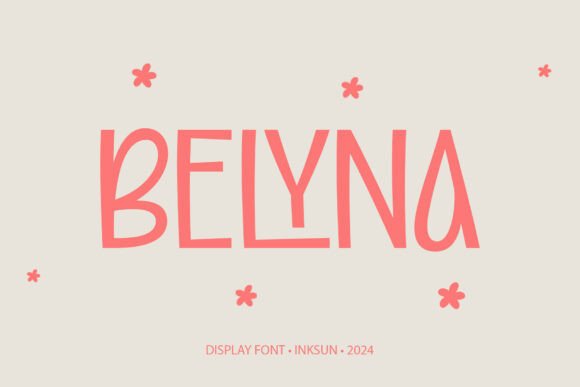
Discover the Charm of Belyna Font: A Friendly Display Sans-Serif for Creative Projects
Have you ever been in the middle of a design project, and suddenly, you’re stuck on finding the perfect font? I recall a recent experience where I was working on a children’s book, and my client’s request was simple yet challenging: find a font that’s both playful and elegant. After hours of searching, I stumbled upon Belyna Font, designed by Inksun in 2024. This sweet and friendly display sans-serif font has been a game-changer for my designs, and I’m excited to share its unique charm with you.
A Personal Review of Belyna Font
- ✅ Unique and Playful Details: The elongated, hand-drawn letterforms with subtle playful details, such as the distinctive horizontal bar in the letter ‘L’, make Belyna stand out.
- ✅ Clean yet Whimsical Aesthetic: Its clean design ensures versatility for a wide range of creative projects, from joyful branding and social media graphics to children’s books and festive posters.
- ✅ Approachable Personality: Belyna’s warm, authentic, and modern touch makes it perfect for designs that require a friendly and inviting feel.
- ✅ Multilingual Support: The font supports multiple languages, making it an excellent choice for global projects.
While Belyna Font is an excellent choice for many projects, there are a few minor considerations to keep in mind:
- 🤔 Legibility at Small Sizes: Like many display fonts, Belyna may not be the best choice for body text or small font sizes, as some details might get lost.
- 🤔 Overuse of Stylistic Alternates: With great power comes great responsibility! Be mindful of overusing stylistic alternates, as it may make your design look cluttered.
The Story Behind Belyna Font
Belyna Font was designed by Inksun in 2024 with the goal of creating a friendly and approachable display sans-serif font. The designer’s inspiration came from the natural world, aiming to capture its unique charm and playful spirit. The result is a font that’s both clean and whimsical, perfect for a wide range of creative projects.
| Font Name | Belyna Font |
| Author | INKSUN™ |
Q: Is Belyna Font suitable for body text?
While Belyna Font is primarily designed as a display font, it can be used for short paragraphs or captions. However, for longer body text, a more traditional sans-serif font might be more suitable.